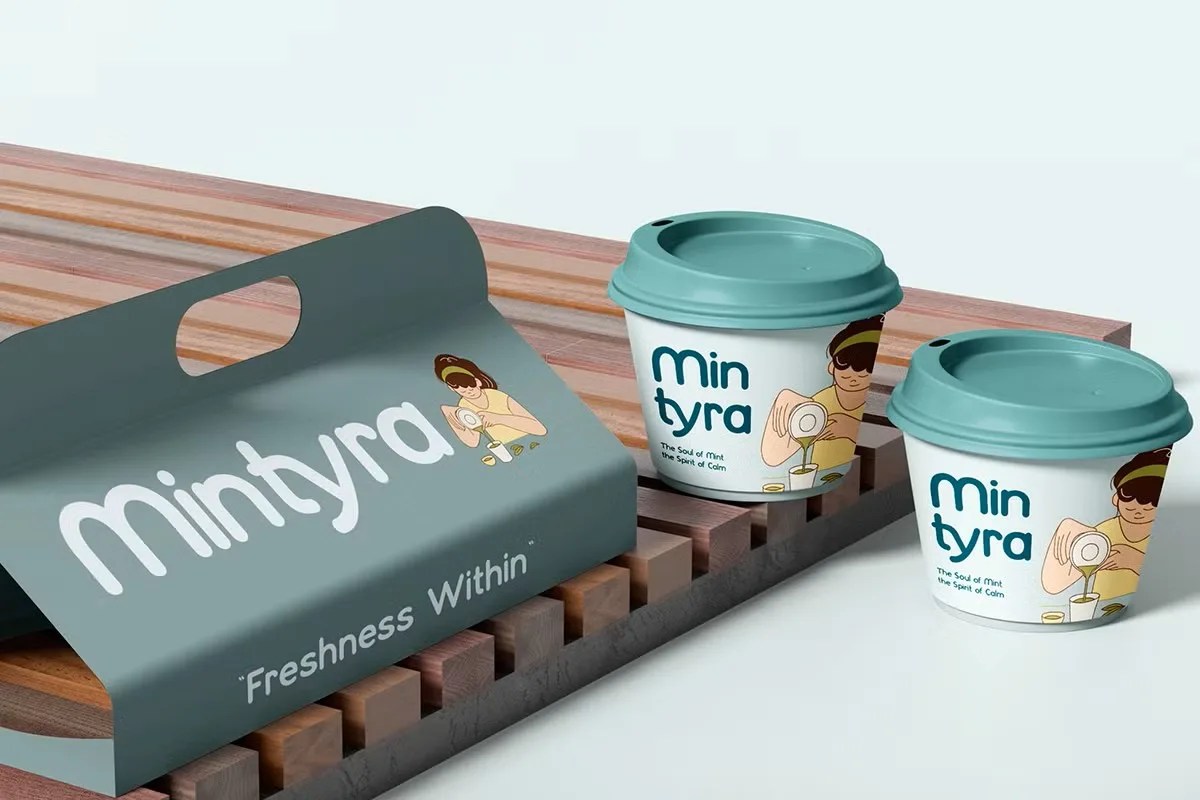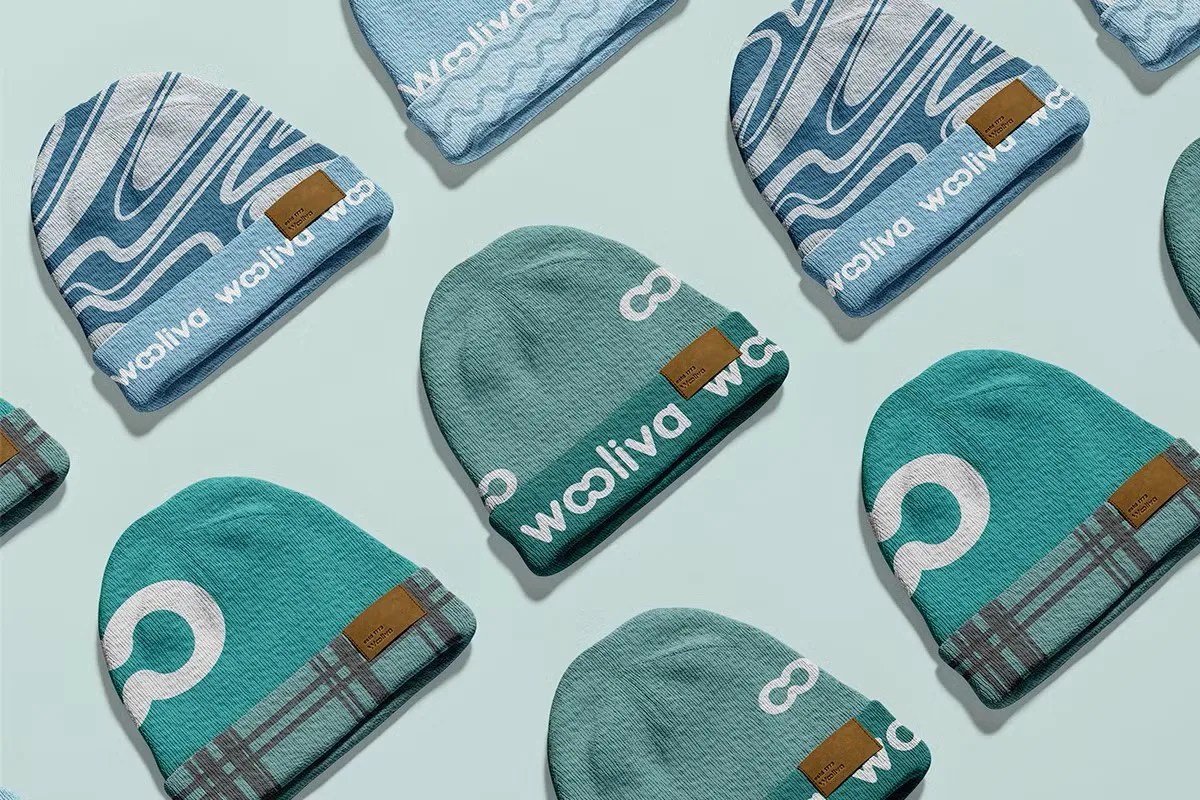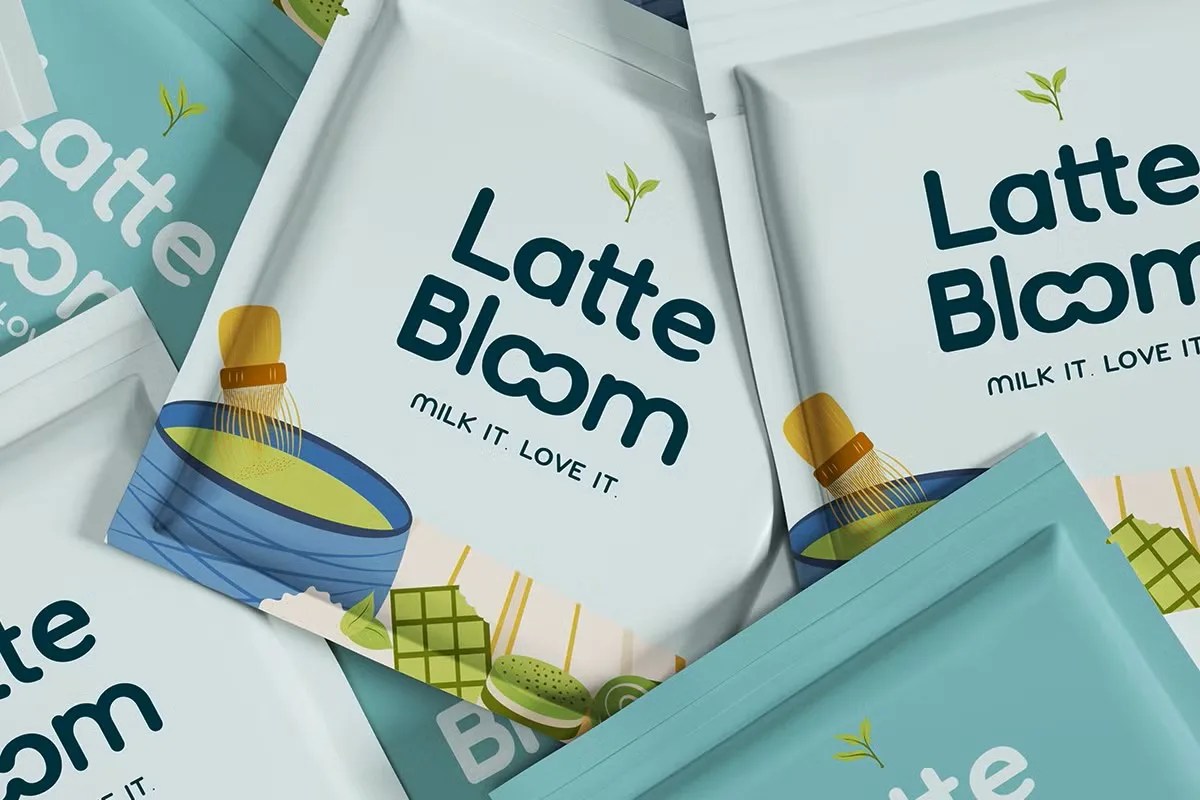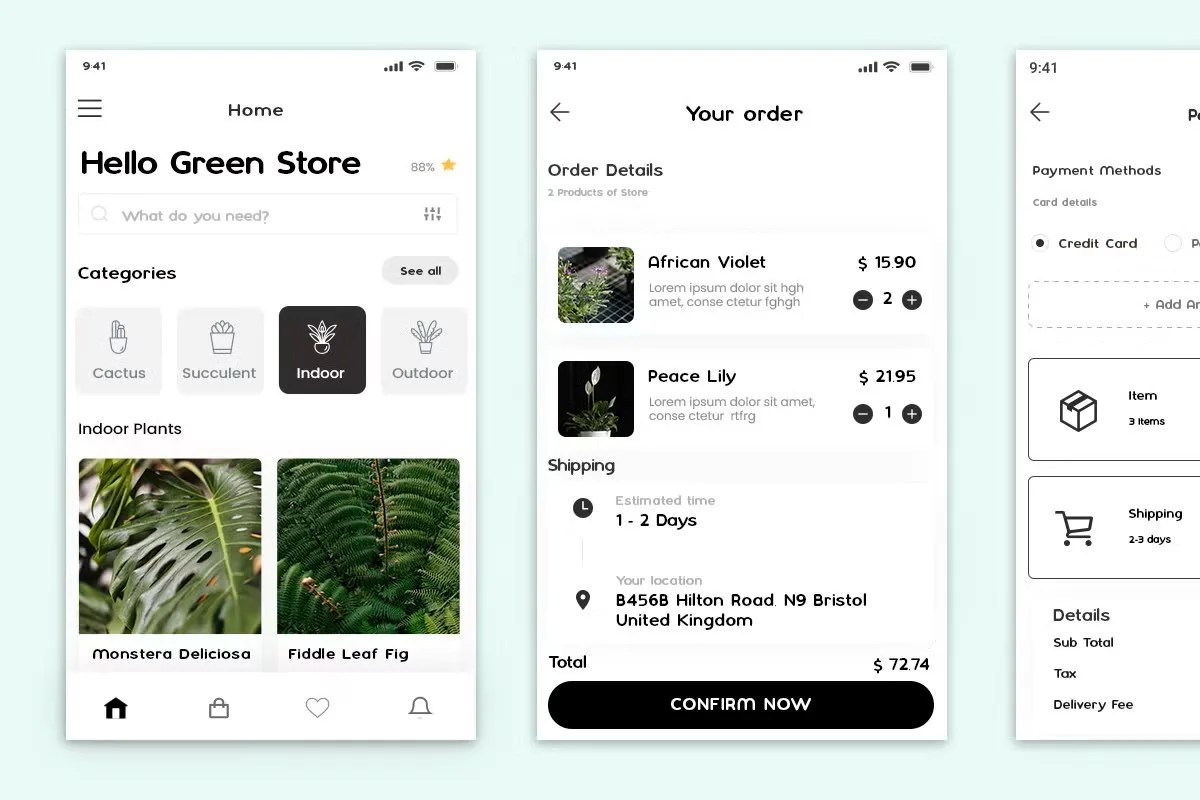
Poffina by Roomspace is a modern sans serif font with a clean, minimalist, and versatile design. Its balanced letterforms and smooth curves make it an excellent choice for projects that need a contemporary and professional look.
Perfect for branding, logos, posters, packaging, editorial layouts, social media graphics, and website design, Poffina delivers clarity and elegance in every use.
• Modern sans serif typeface
• Great for branding & logo design
• Ideal for editorials & magazines
• Works well in web & digital projects
• Perfect for posters & packaging
• Clean and minimal style
• Versatile for both headlines & body text
Poffina